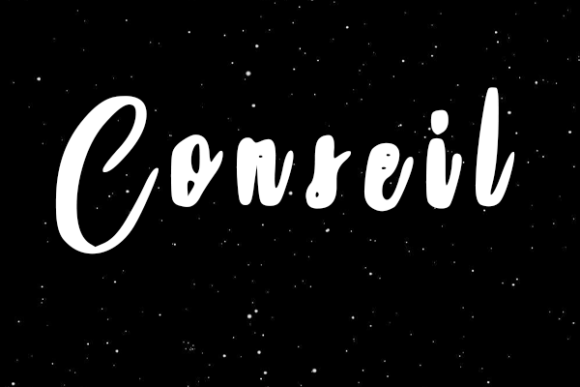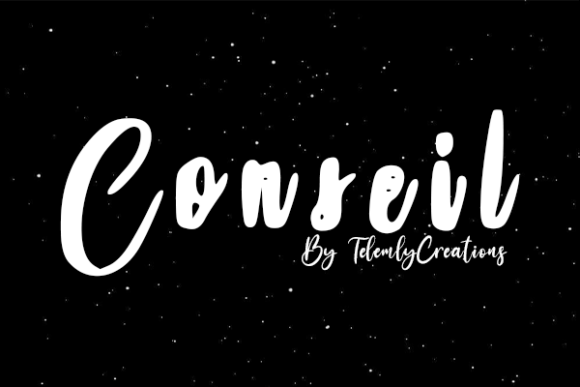
Discover the Magic of Conseil Font: Elevate Your Designs with Elegance
Are you a designer, craftsperson, or simply someone who appreciates the art of beautiful typography? Look no further than Conseil Font, the ultimate choice for creating stunning logos, branding, and quotes that capture the essence of your vision. With its unique and beautiful touch, Conseil Font is poised to revolutionize the way you approach design, bringing your creations to life in ways you never thought possible.
The Uniqueness of Conseil Font
What sets Conseil Font apart from other typefaces is its distinctive character. Every letter in the Conseil Font family is meticulously crafted to possess a unique and beautiful touch. This attention to detail ensures that each element of your design, whether it’s a logo, a brand name, or a quote, stands out with elegance and sophistication. The result is a visual appeal that captivates your audience, making your message memorable and impactful.
Ideal for Logos and Branding
Logos and branding are crucial components of any business’s identity, serving as the face of the company. With Conseil Font, you can create logos that are not only visually appealing but also convey the essence of your brand. The font’s elegant and distinctive style makes it perfect for businesses looking to establish a strong and memorable brand presence. Whether you’re launching a startup or rebranding an existing company, Conseil Font offers the versatility and sophistication you need to make a lasting impression.
Bringing Quotes to Life
Quotes have the power to inspire, motivate, and provoke thought. With Conseil Font, you can showcase your favorite quotes in a way that’s as visually stunning as the words themselves. The font’s unique touch adds an artistic element to your quotes, making them perfect for social media posts, digital art, or even printed materials like posters and flyers. Whether you’re a writer, artist, or simply someone who loves to share inspiring words, Conseil Font provides the perfect canvas for your creativity.
Why Choose Conseil Font?
So, what makes Conseil Font the best choice for your design needs? Here are a few reasons why designers and crafters are gravitating towards this exceptional typeface:
- Unique and Beautiful Touch: Each letter in the Conseil Font family is designed to bring a unique and beautiful touch to your designs, setting them apart from more generic typefaces.
- Elegance and Sophistication: Conseil Font adds an air of elegance and sophistication to any design, making it perfect for logos, branding, and quotes.
- Versatility: Whether you’re working on a digital project or a printed material, Conseil Font adapts seamlessly, ensuring your design looks great across various platforms.
- Memorability: The distinctive style of Conseil Font helps create memorable designs that leave a lasting impression on your audience.
Conseil Font is more than just a typeface; it’s a tool for creativity, a means to elevate your designs and bring your vision to life. Its unique and beautiful touch makes it the perfect choice for designers and crafters looking to create eye-catching logos, branding, and quotes. With Conseil Font, you’re not just choosing a font; you’re choosing to make a statement. So, why settle for ordinary when you can create something extraordinary? Choose Conseil Font for your next project and experience the difference for yourself.